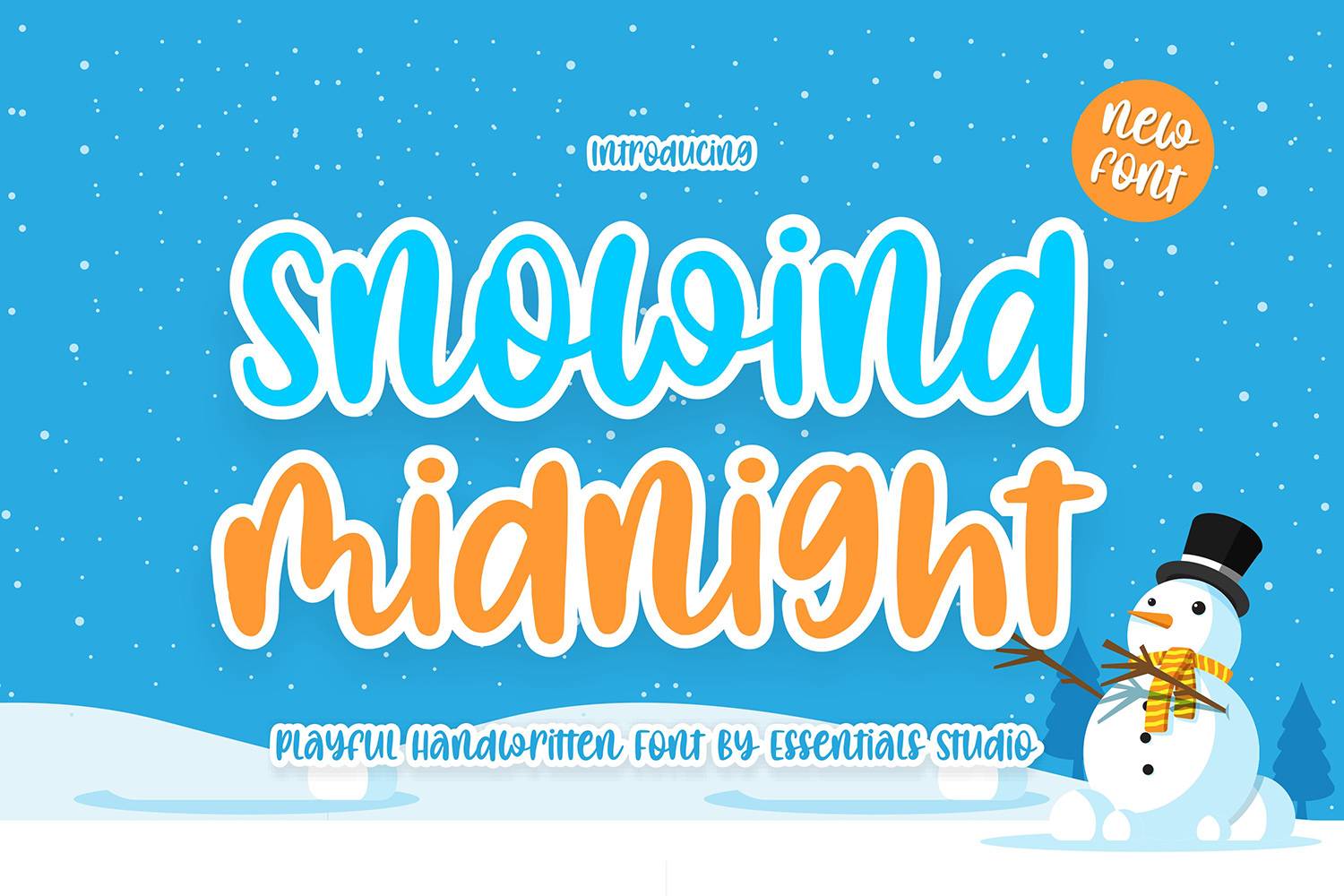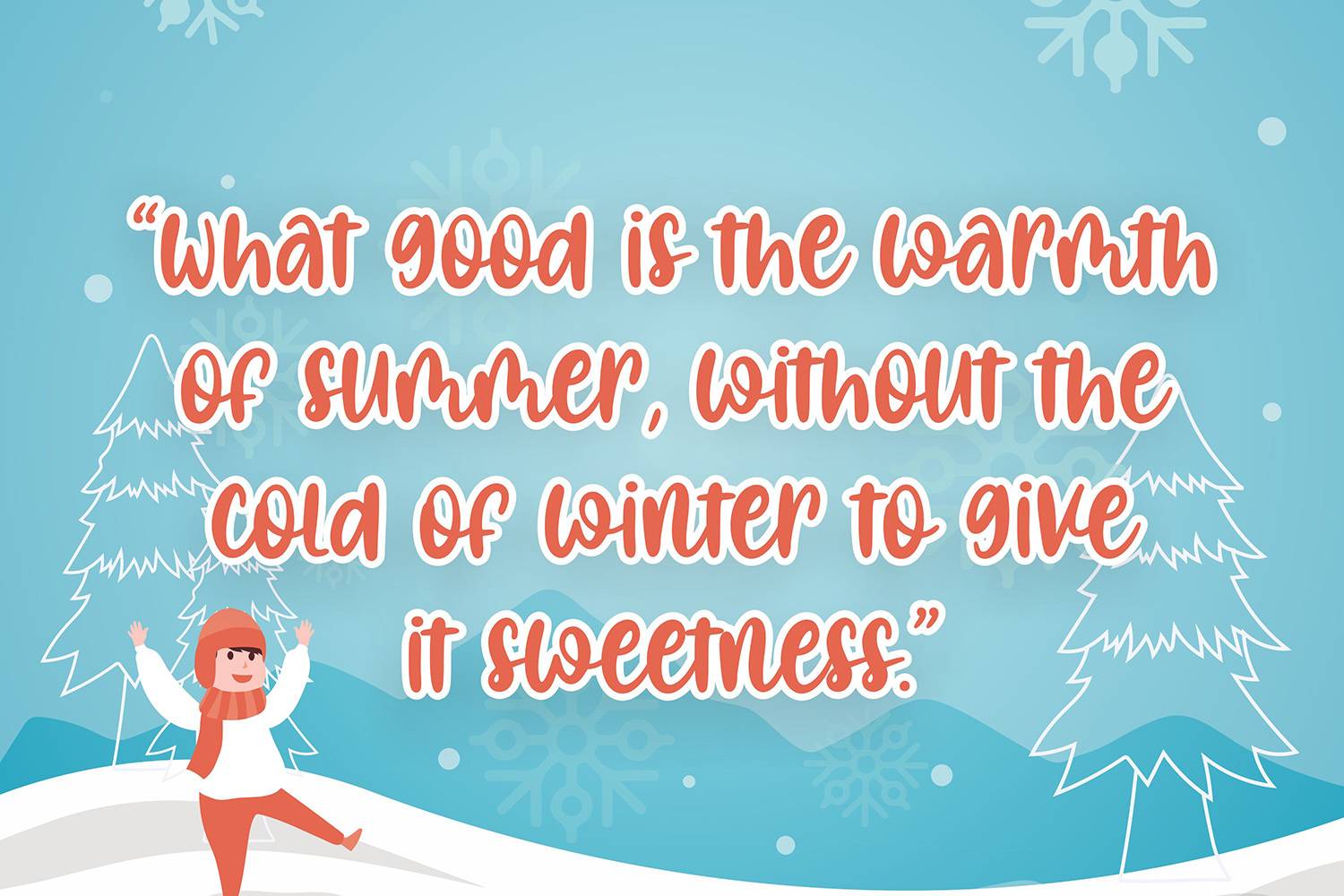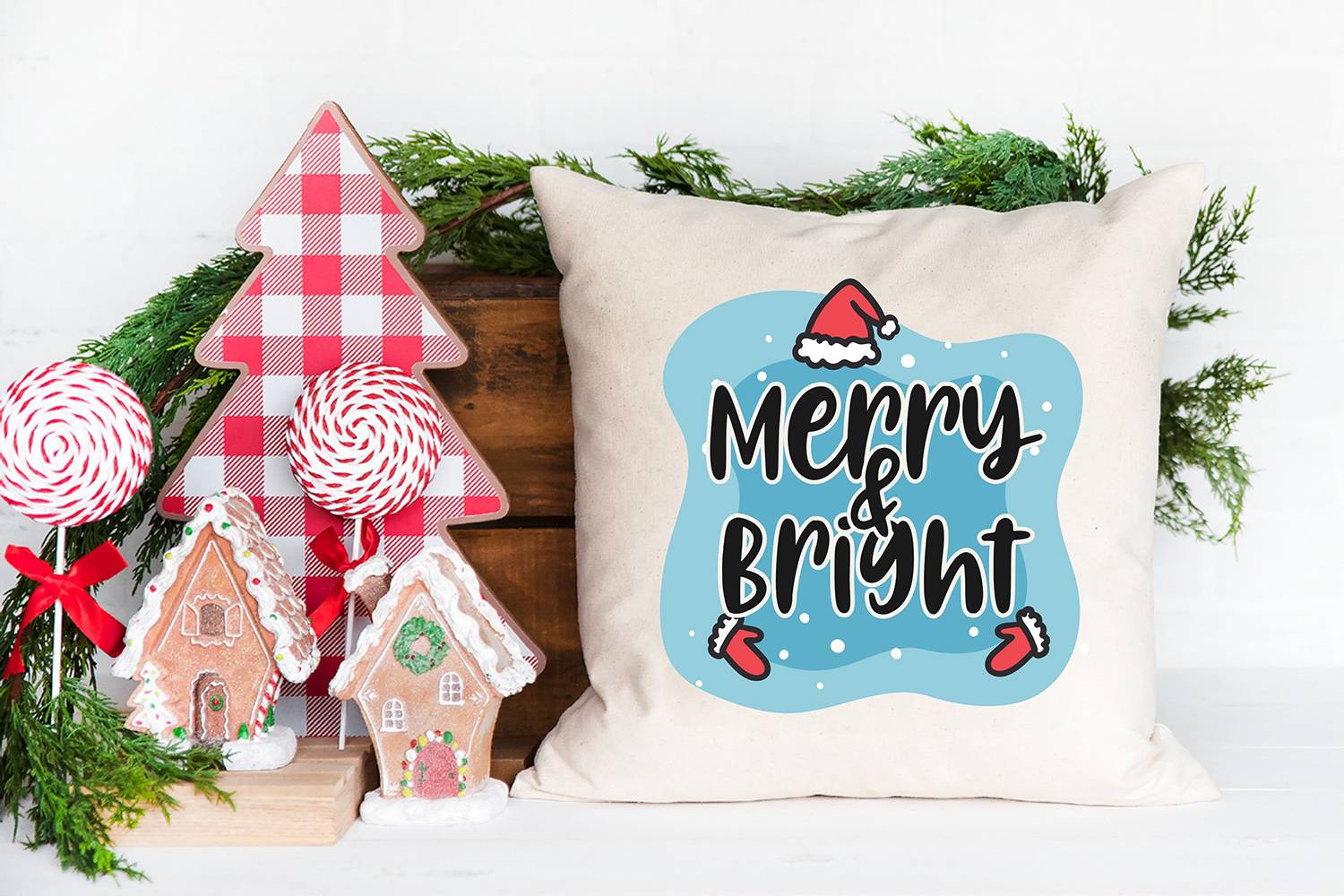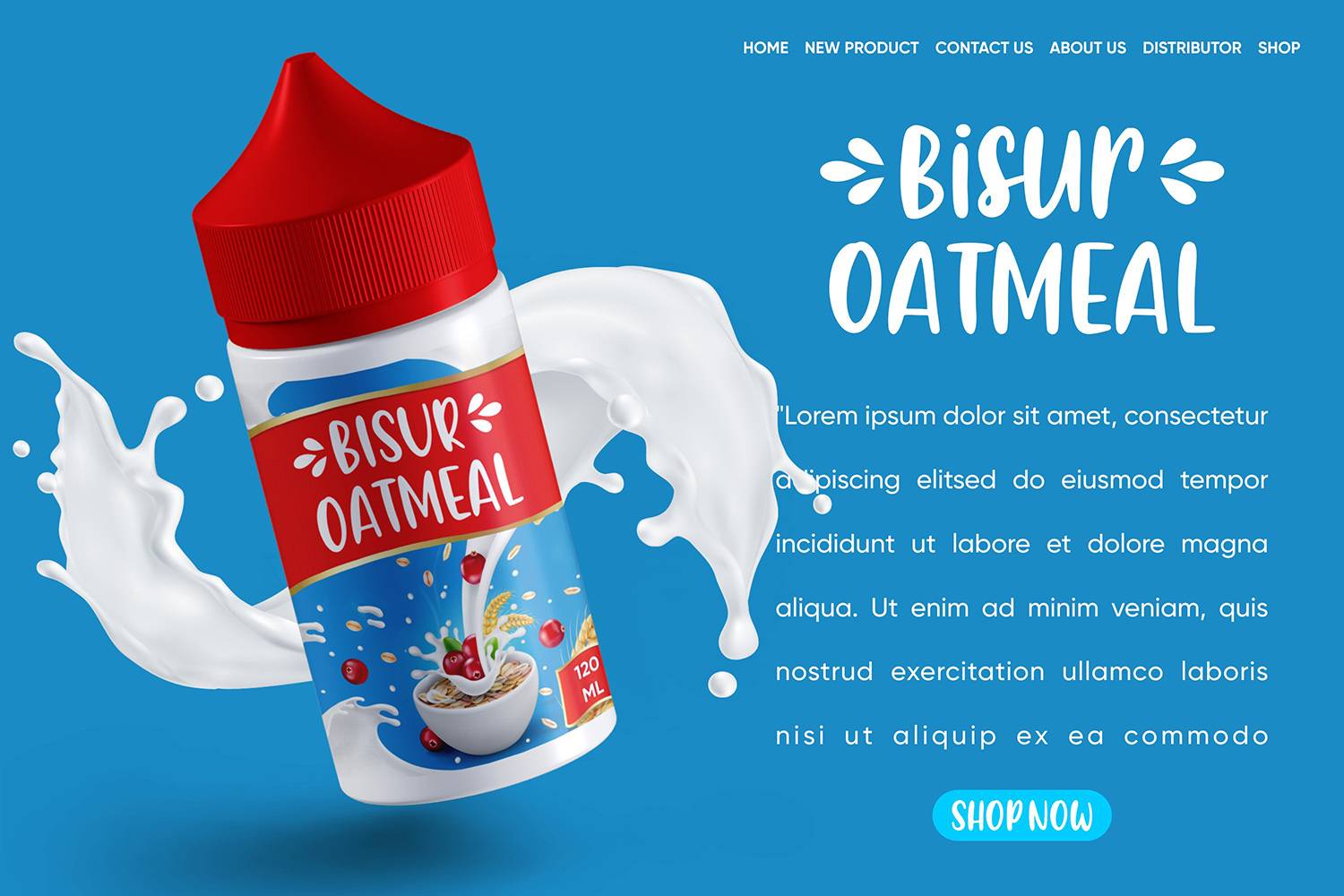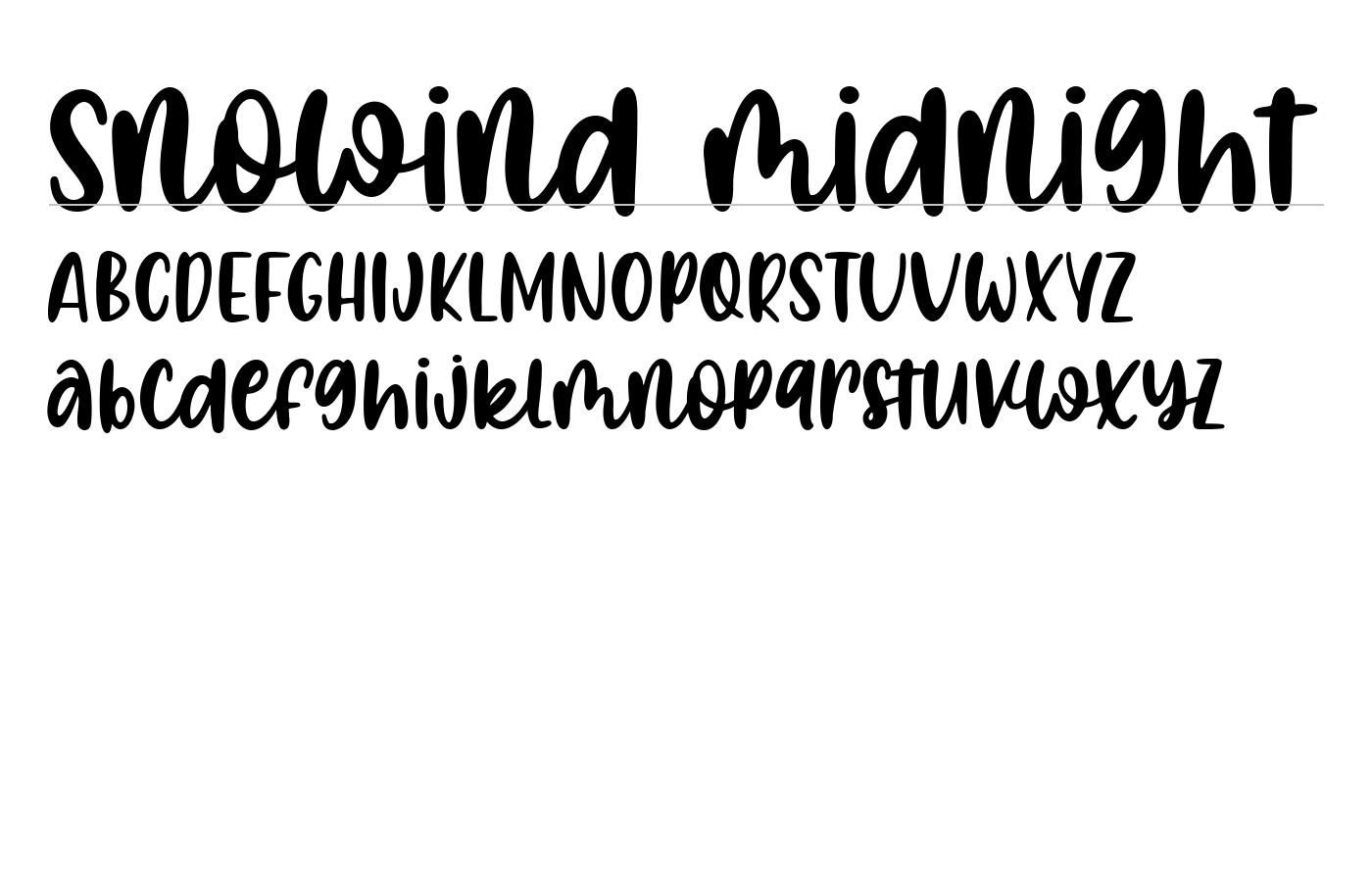
Snowind Midnight is a playful and casual script font with a hand-drawn, brush-like style that feels friendly and approachable. Its bold weight and rounded, flowing letterforms make it ideal for creative projects, informal branding, and headlines where a warm, personal touch is needed. This font works well for invitations, social media graphics, and lifestyle branding, adding an inviting and cheerful personality to any design.
Snowind Midnight Font
About Snowind Midnight Font
| Designer | Annas Rifky Anhar |